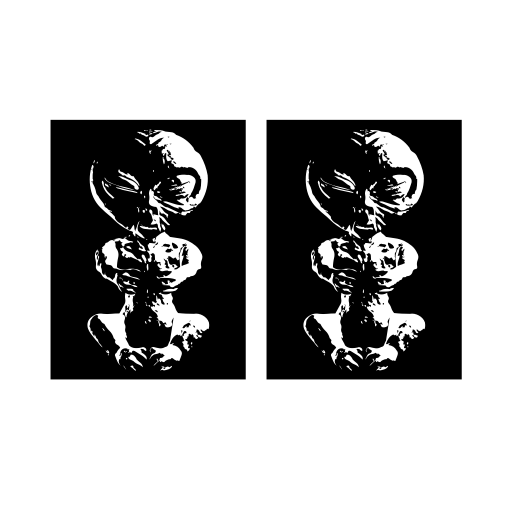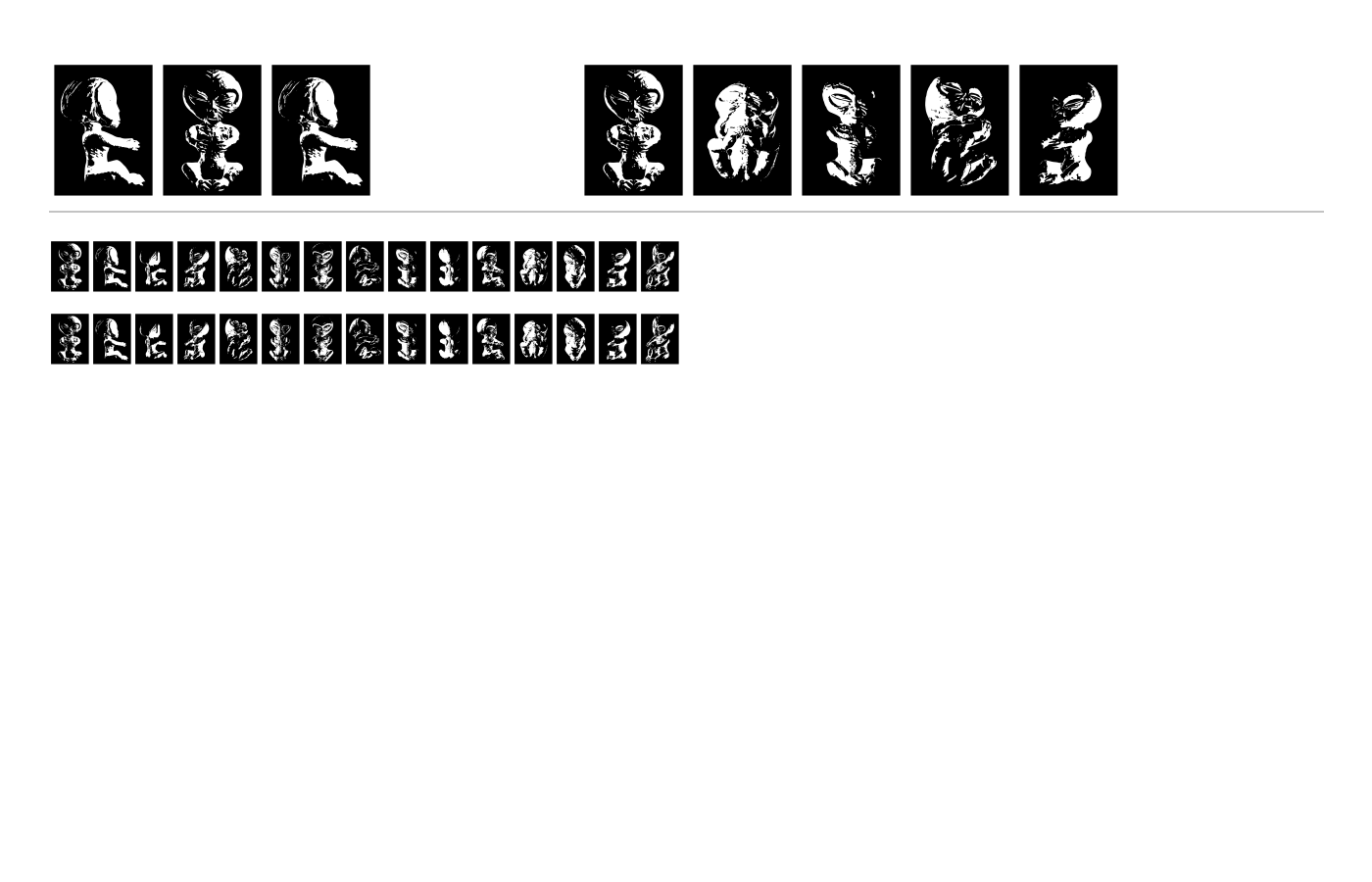
Baby Alien Font is a highly unconventional and artistic display typeface featuring intricate, alien-inspired shapes instead of traditional letterforms. Its abstract, textured design gives a mysterious and futuristic vibe, making it ideal for creative projects, sci-fi themes, or eye-catching titles that demand a unique, otherworldly appearance. This font works best in large sizes where its complex details can be appreciated, adding a bold, surreal touch to branding, posters, or editorial headlines.
Baby Alien Font
About Baby Alien Font